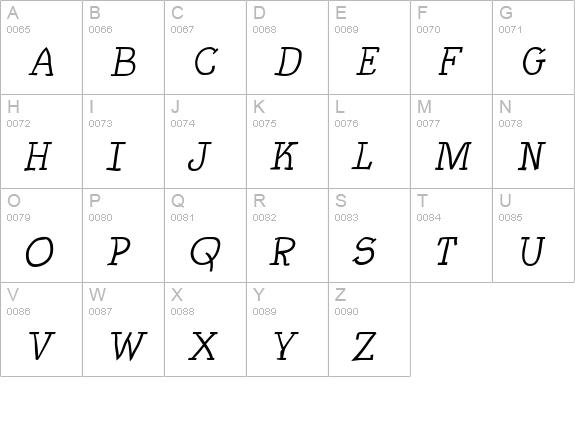
SarahfSlob Italic Font Details
SarahfSlob Italic is a distinctive, italic variant in the SarahfSlob typeface family \xE2\x80\x94 well suited to design and typography projects.
SarahfSlob Italic font is a unique and stylish typeface that adds a touch of elegance and class to any design project. With its slanted and italicized letterforms, this font exudes a sense of movement and sophistication. The SarahfSlob Italic font is perfect for a wide range of applications, including headlines, logos, branding, invitations, and more. Its distinctive design allows it to stand out and grab attention, making it a great choice for projects that require a bold and eye-catching look. What makes SarahfSlob Italic font even more appealing is that it is freely available to download at FontsMarket.com. This means that you can easily access this stunning font without any cost, making it an excellent option for designers on a budget. The versatility of SarahfSlob Italic font allows it to work well with both modern and traditional design styles. Its clean lines and balanced proportions make it easy to read, ensuring that your message gets across clearly and effectively. Whether you're working on a professional project or a personal creative endeavor, SarahfSlob Italic font is sure to elevate your designs to the next level. Its combination of elegance, style, and accessibility make it a must-have for any designer's font collection. So don't hesitate to download this font for free at FontsMarket.com and start creating stunning designs today.